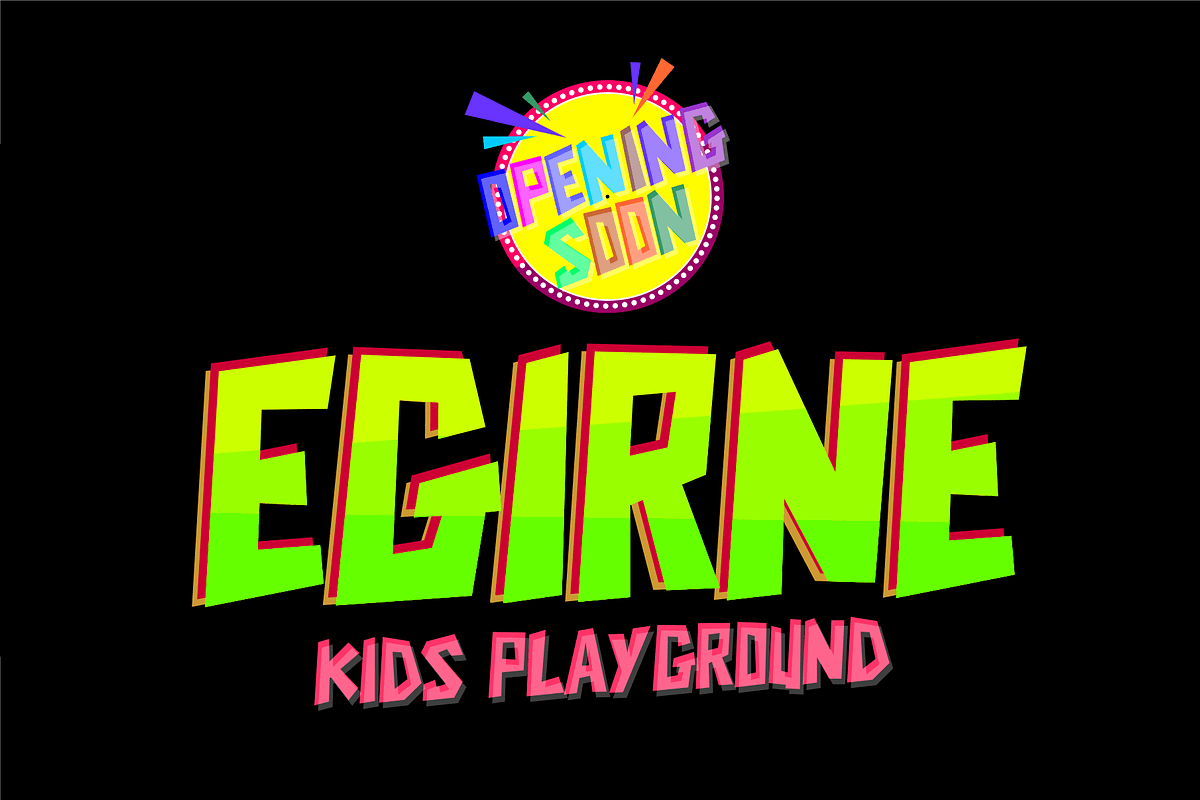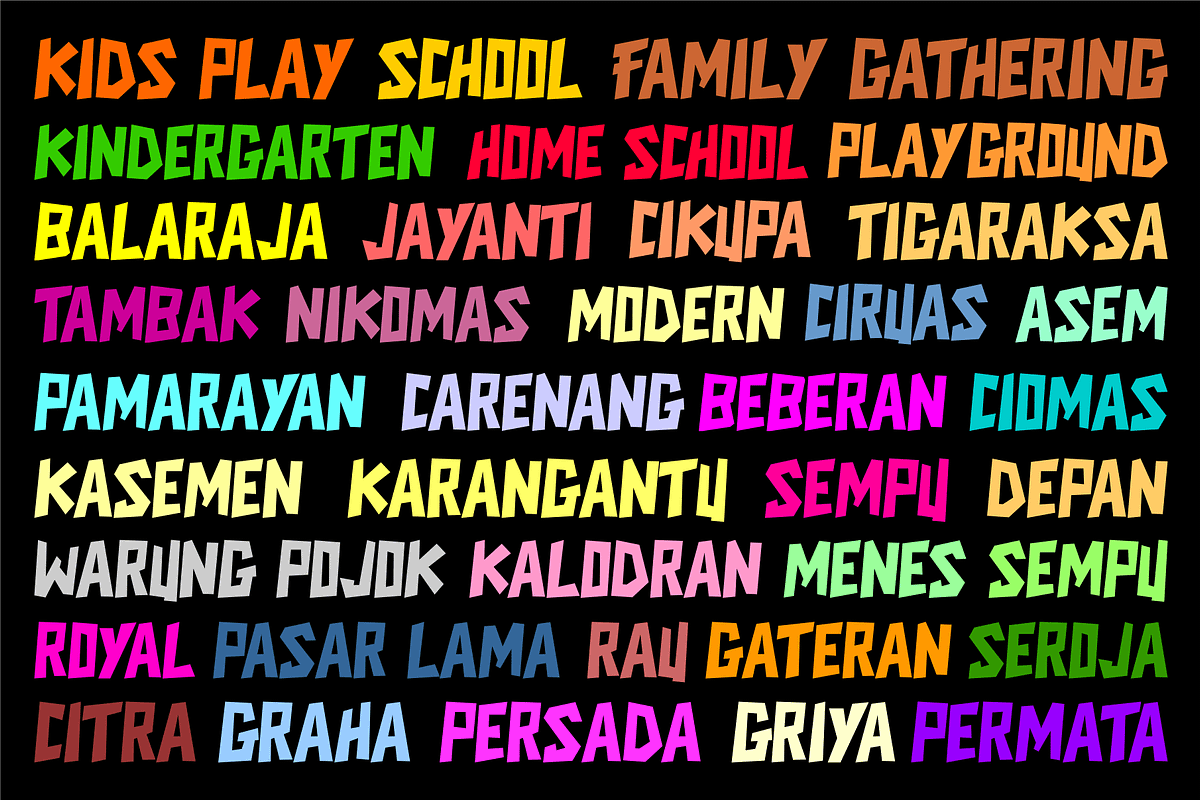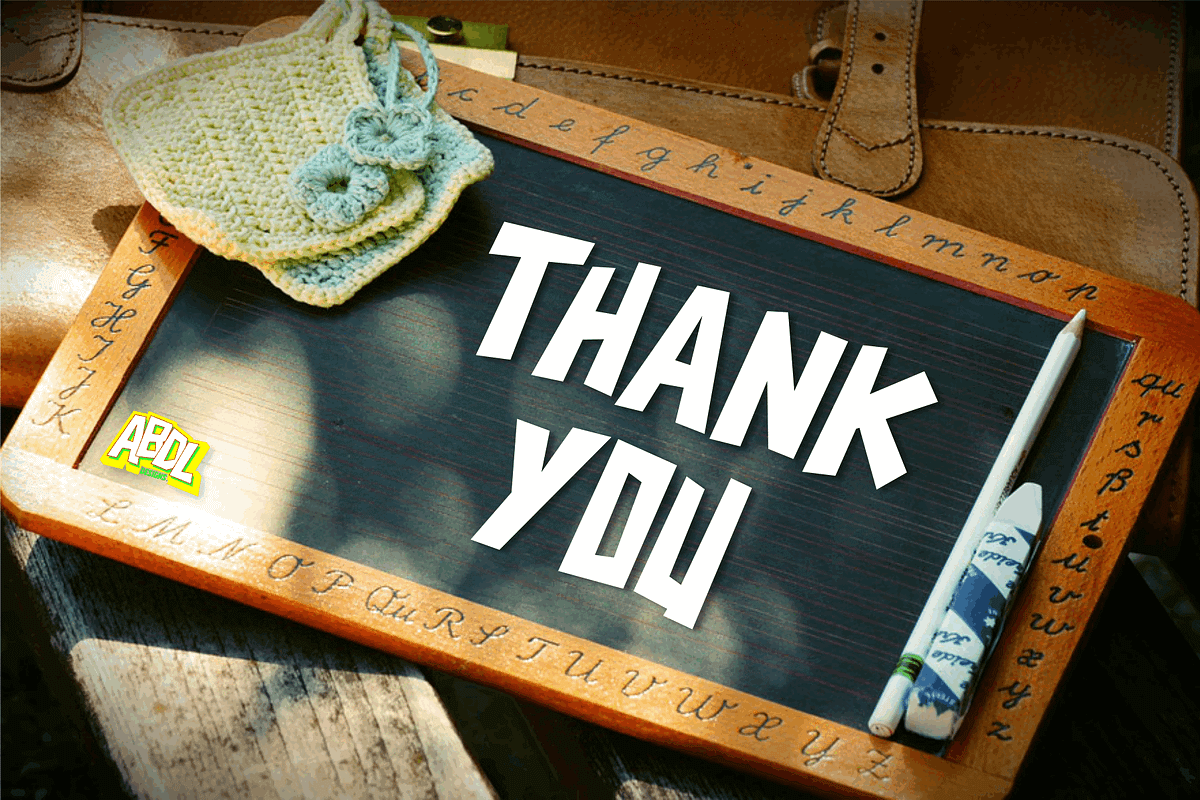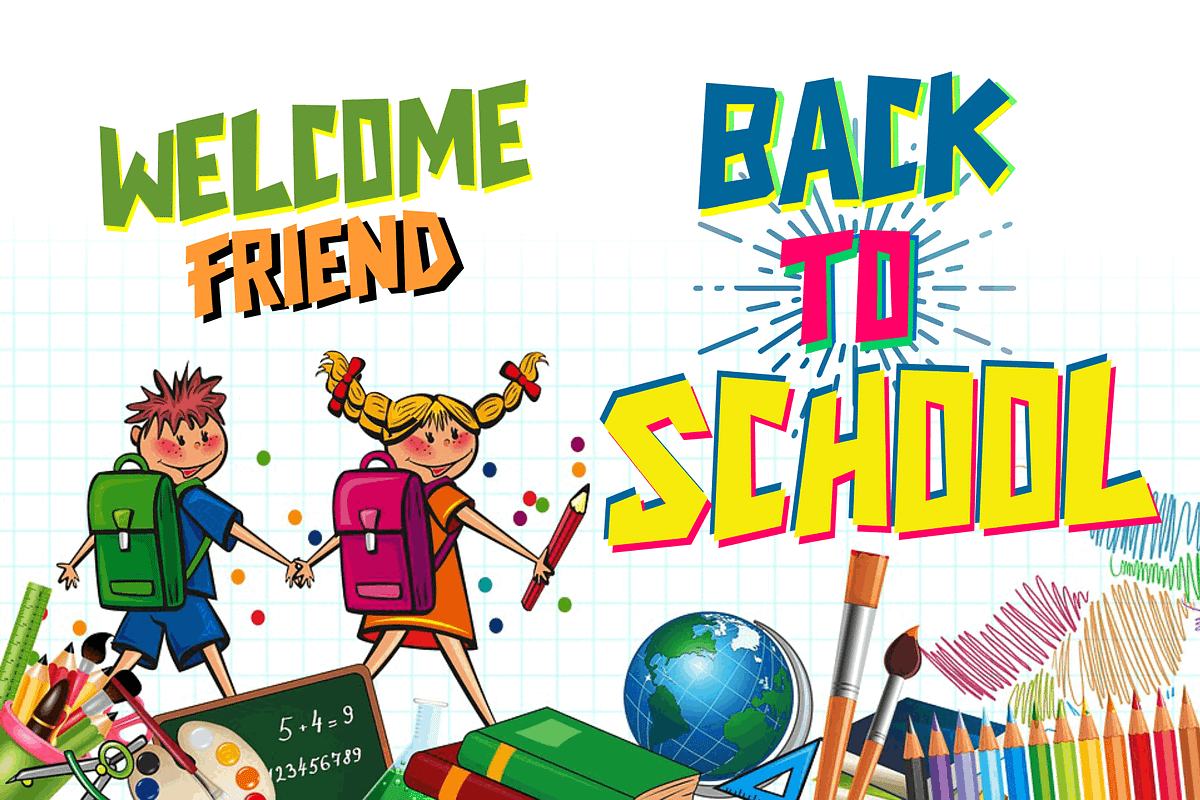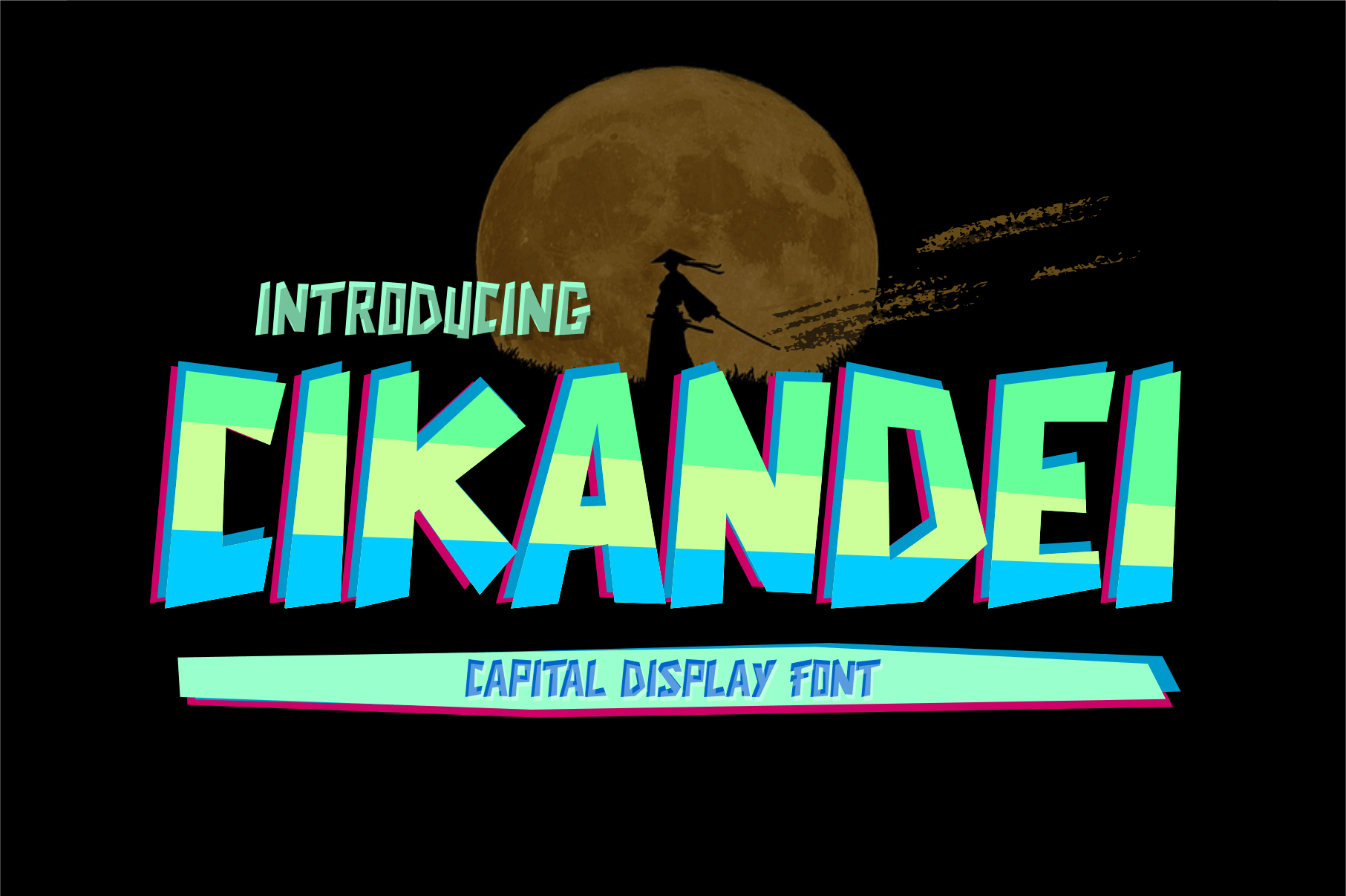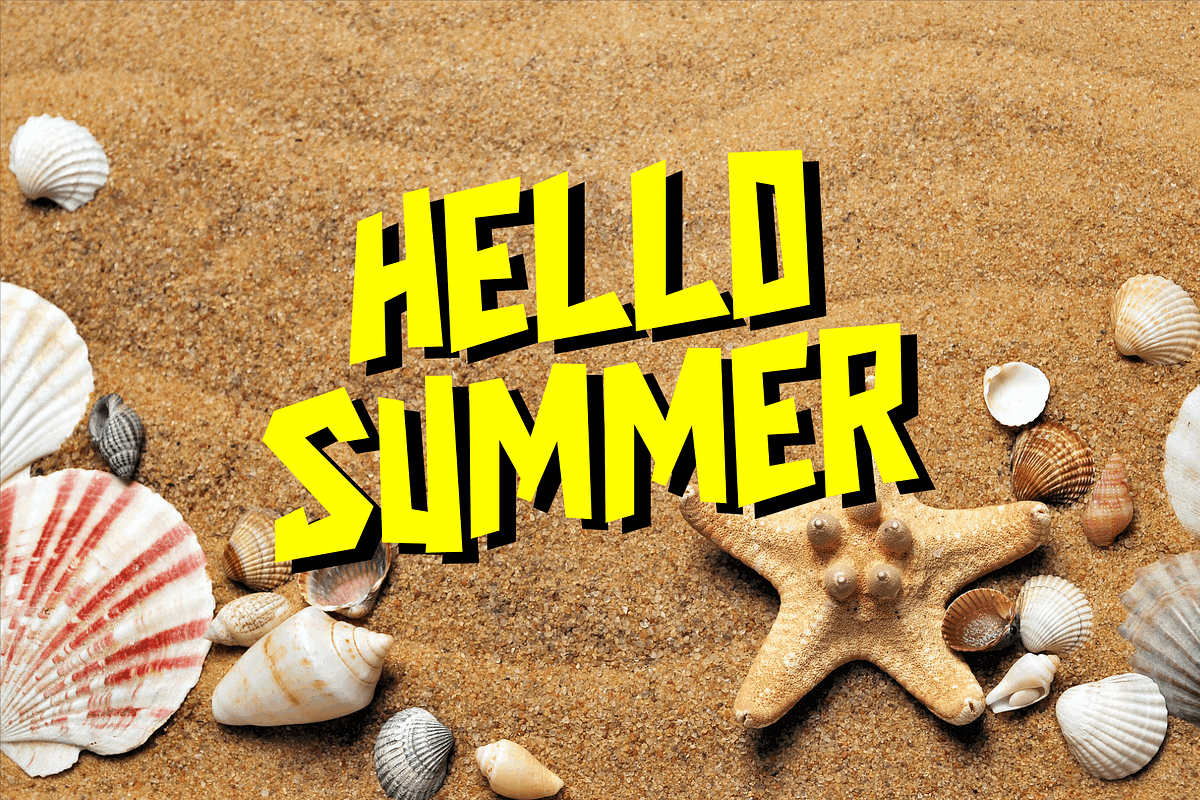
Cikandei - Display Font
Cikandei is a cool, bold and thick lettered display font. Whether you’re using it for crafts, digital design, presentations, or making greeting cards, this font has the potential to become your favorite go-to font, no matter the occasion!